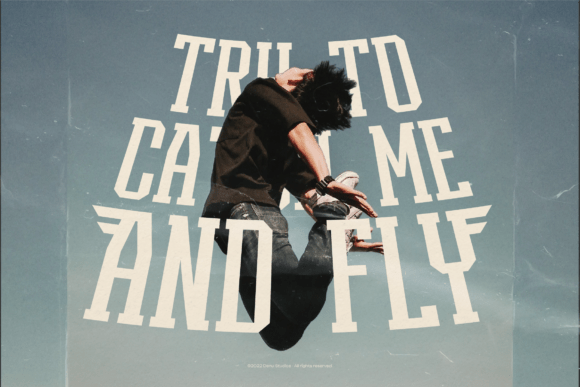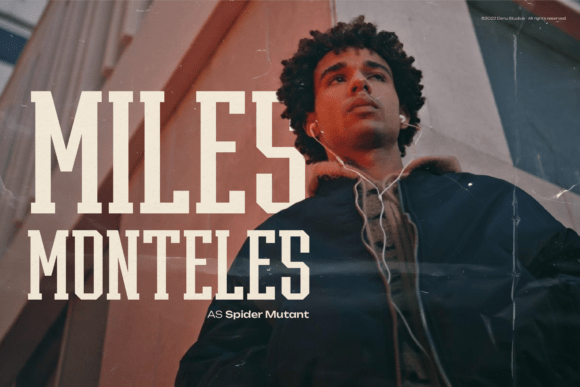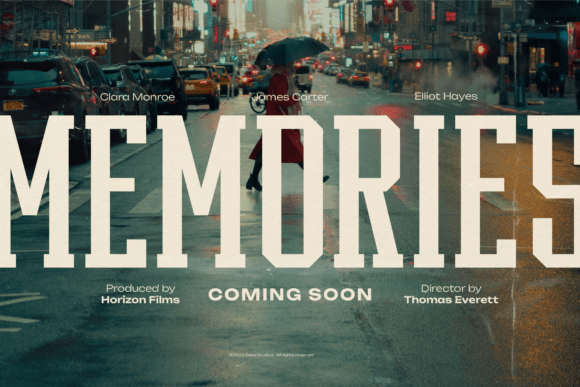
Hoston Runejay | Condensed Display Font
About the Hoston Runejay | Condensed Display Font
We are excited to introduce Hoston Runejay | Condensed Display Font, a must-have typeface for any serious designer. Hoston Runejay | Condensed Display Font, from Denustudios, suitable for any projects such as: logos, branding projects, homeware designs, product packaging, mugs, quotes, posters, shopping bags, t-shirts, book covers, name card, invitation cards, greeting cards, label, photography, watermark, special events, and all your other lovely projects that need a Condensed Display Font taste.
Hoston Runejay | Condensed Display Font Usage Examples
Hoston Runejay | Condensed Display Font Example